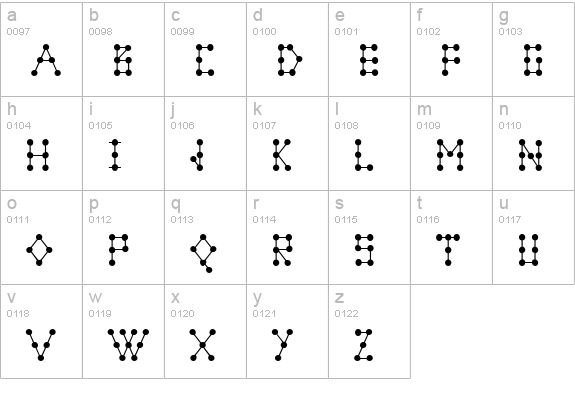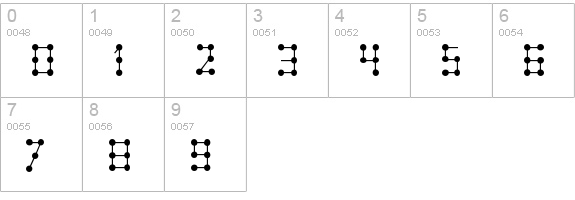
Tinkerer Font Details
Introducing Tinkerer, a remarkable font that embodies the spirit of creativity and innovation. With its charmingly irregular letterforms and whimsical details, Tinkerer adds a touch of playfulness to any design project. This unique typeface is perfect for those seeking a font that captures the essence of imagination and tinkering. Its handcrafted appearance evokes a sense of craftsmanship and authenticity, making it an ideal choice for projects that require a personal and artistic touch. But what makes Tinkerer even more special is that it is freely available to download at FontsMarket.com. Yes, you heard it right – this fantastic font can be yours without any cost. Whether you're a student, a designer, or simply a font enthusiast, Tinkerer provides an opportunity to enhance your work with a distinctive and captivating typeface. So why wait? Bring your designs to life with Tinkerer and let your creativity soar. Download this extraordinary font for free at FontsMarket.com and embark on a journey of endless possibilities. Unleash your inner tinkerer and watch as your projects come to life with this delightful and imaginative typeface.